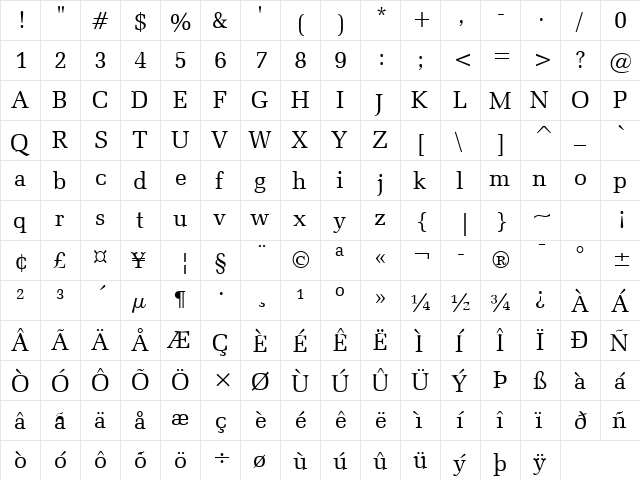
Bid Roman Regular
Design Context for Bid Roman Typeface
Bid Roman takes a measured approach to typography — its balanced proportions and neutral character make it a reliable workhorse for both digital and print work.
Pro Tip: Use Bid Roman in both headline and body roles to test its range before committing to a single application.